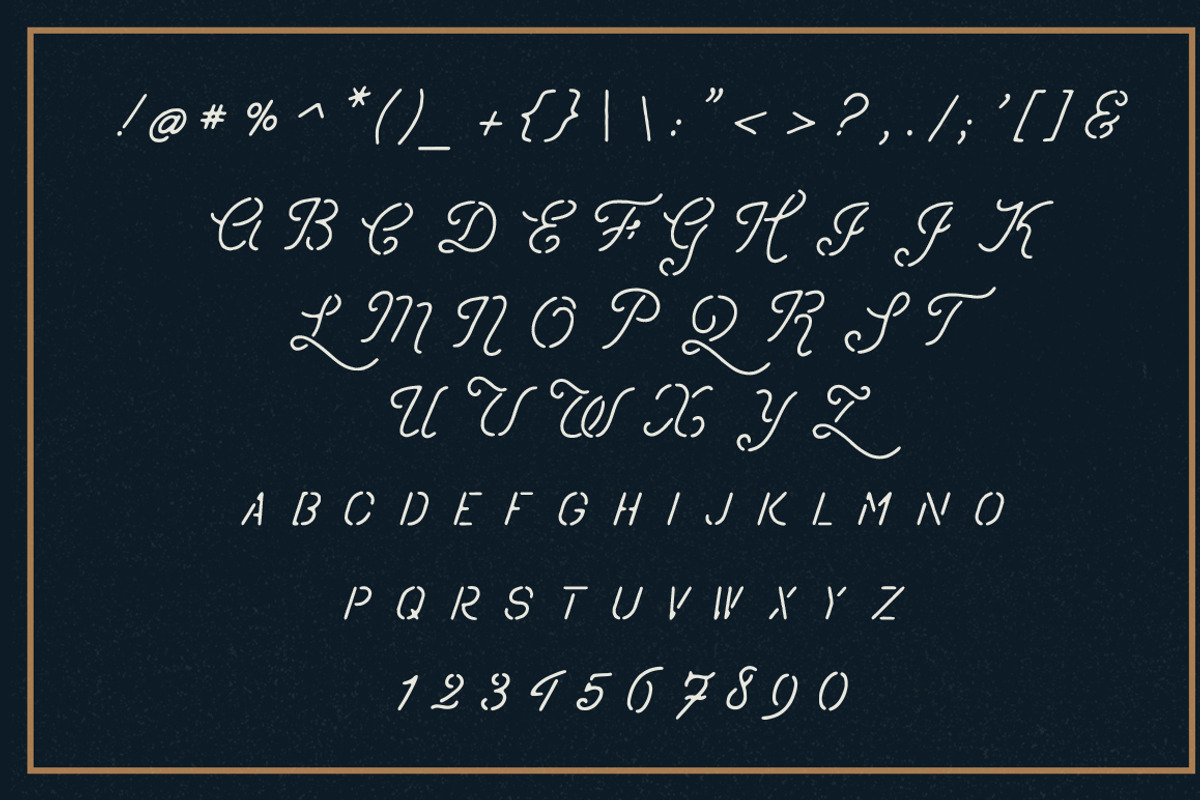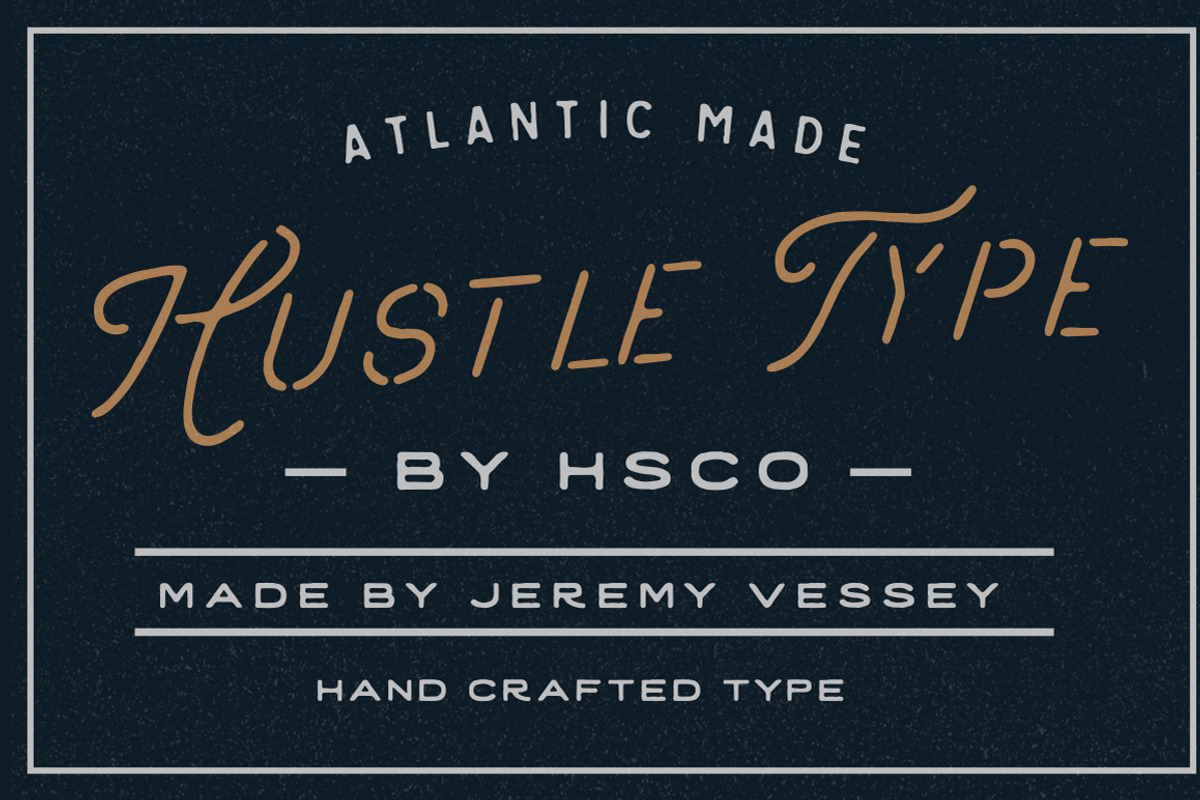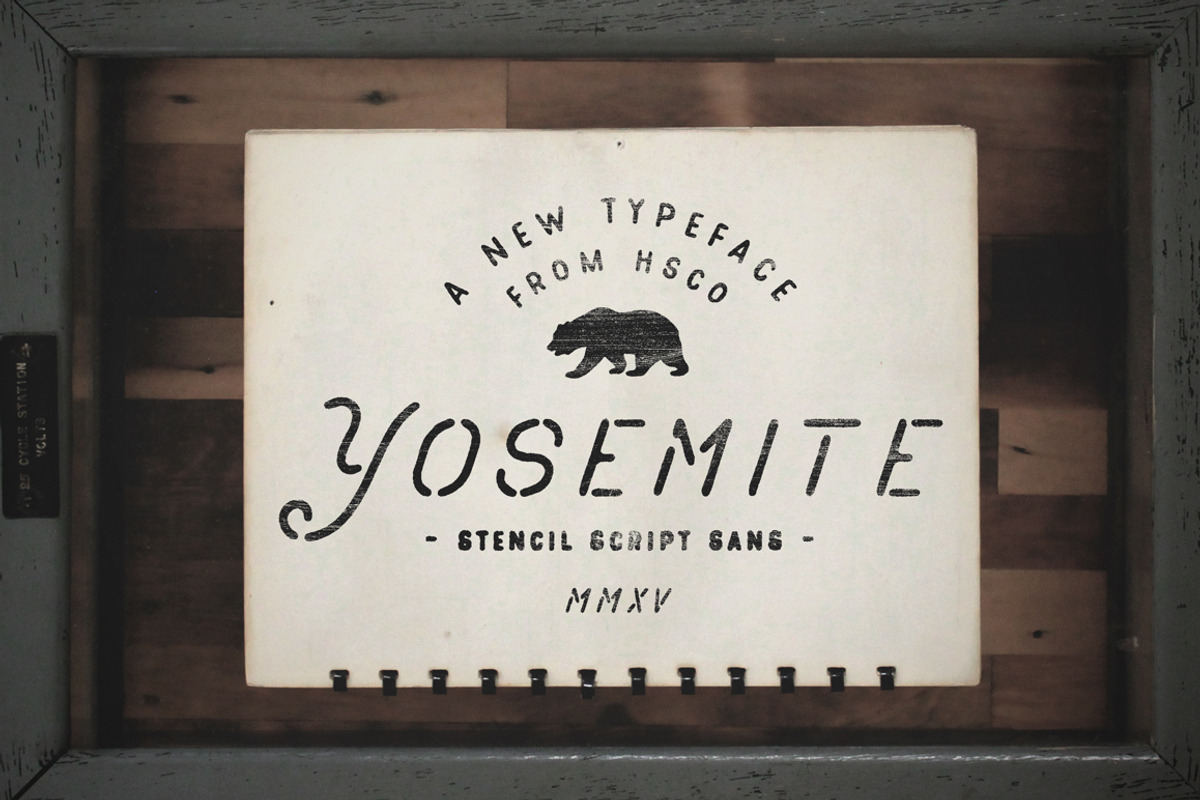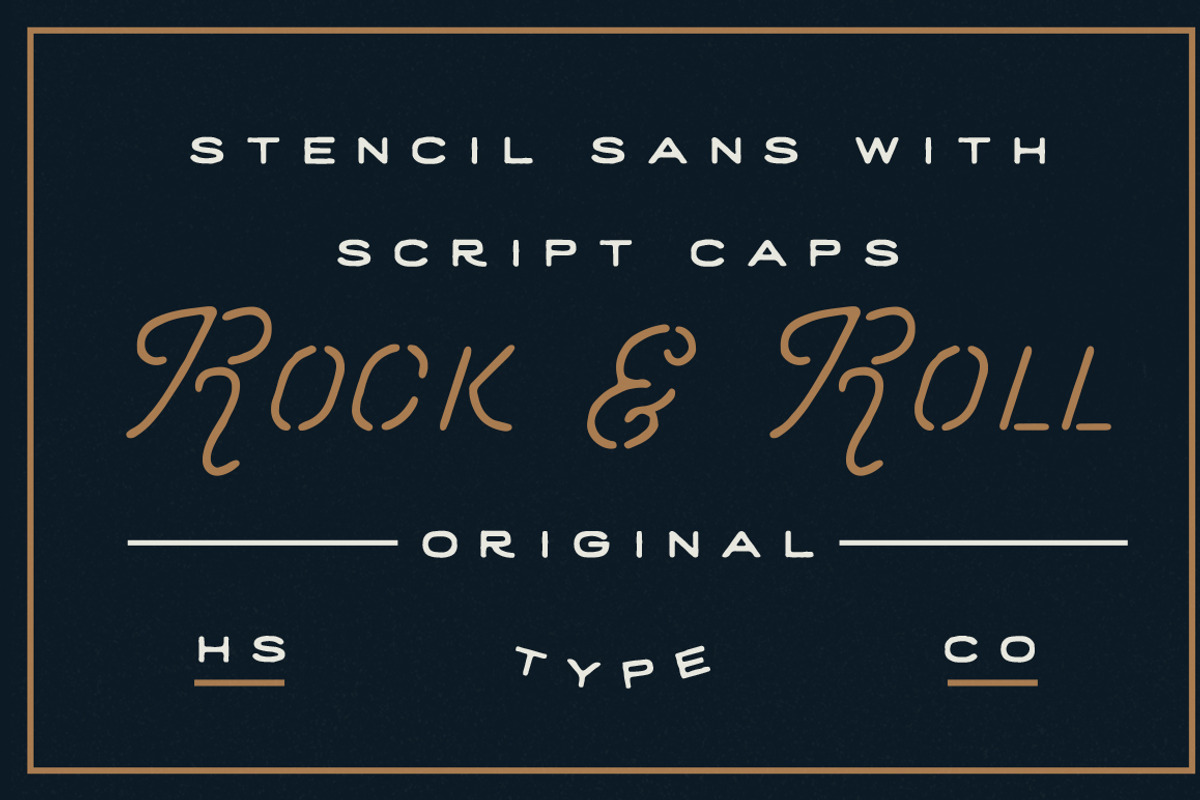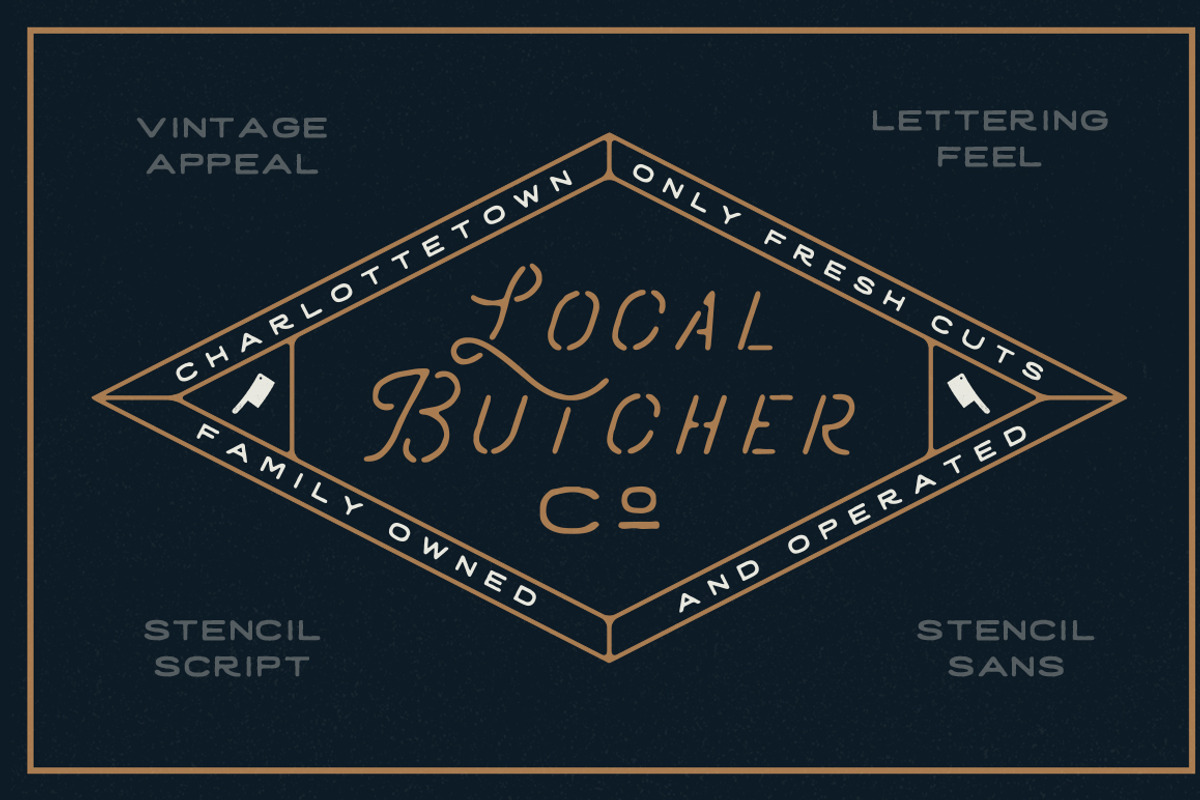
Yosemite
Yosemite - "Stencil Script Sans" (A mix-mash of everything)
I wanted to create a typeface that has a lot of distinctive character. With script style capital letters, small-caps sans type for the lowercase portion. The mixture of the two styles combined with a stencil look gives this font a 1 of a kind incredible feel. Inspired by recent lettering & vintage type projects. This typeface is perfect for:
- Branding
- Signage
- Apparel
- Quotes
- Monograms
- Posters
& many more projects!